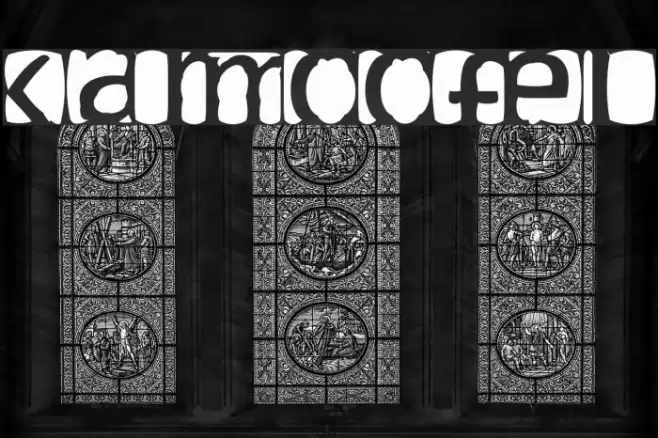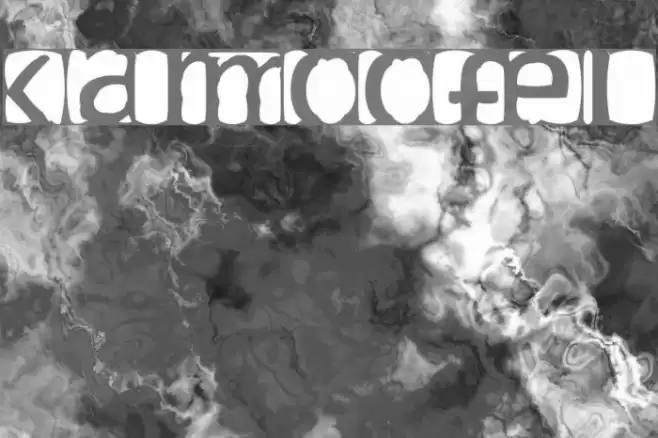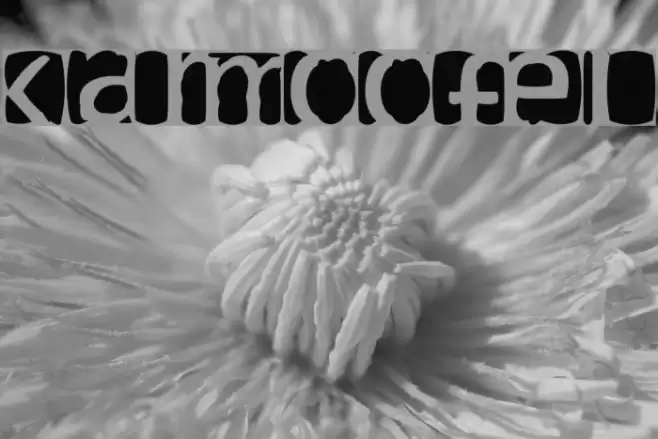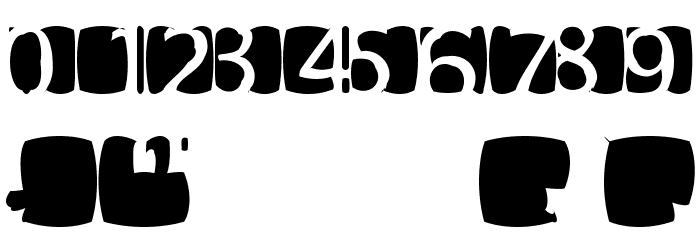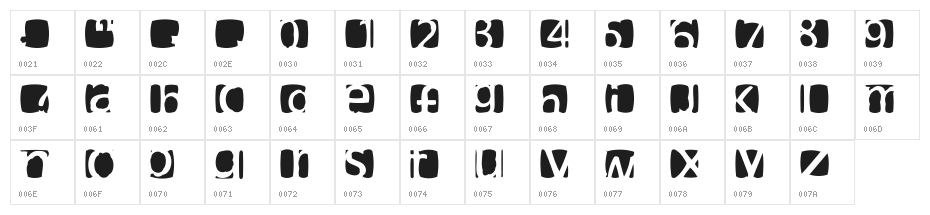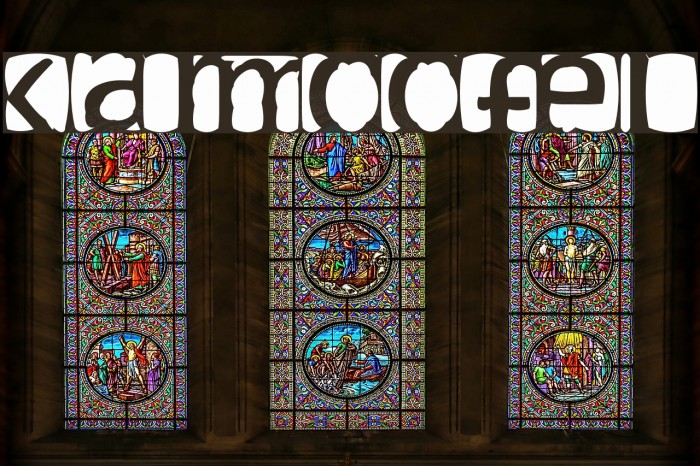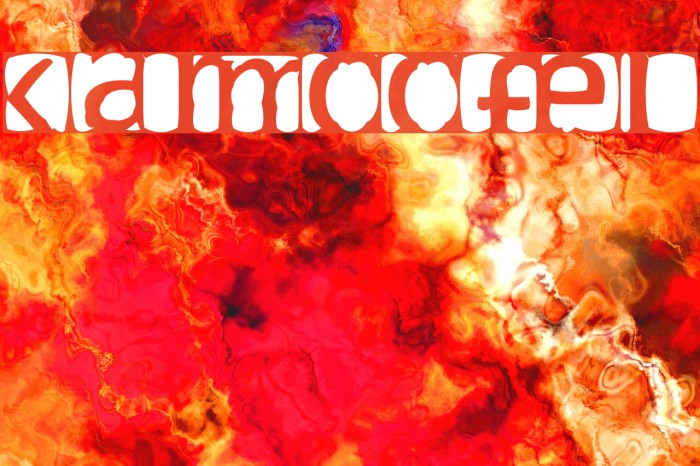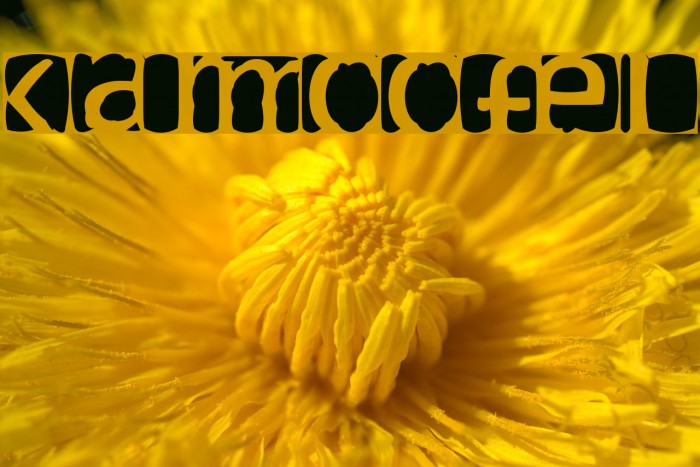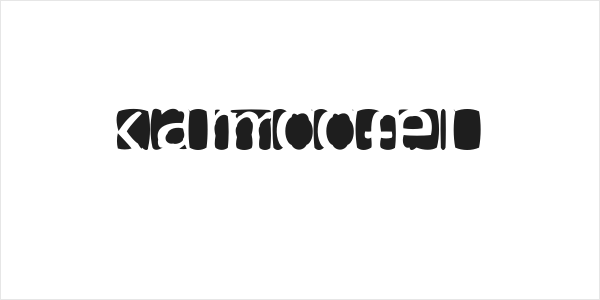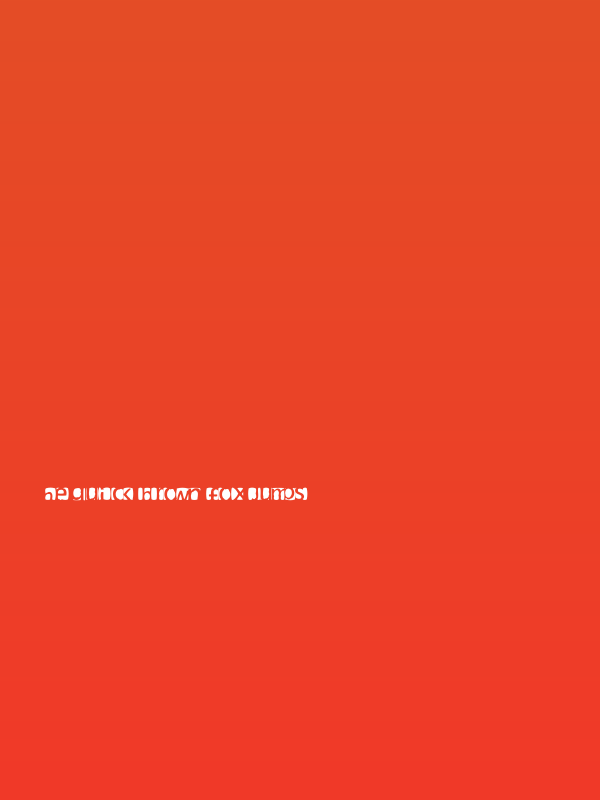
karmoofel Font
karmoofel Description
This font features a bold and striking design with a highly decorative style. The characters are enclosed within rounded, square-like shapes, creating a unique and artistic appearance. The letters have a high contrast between thick and thin strokes, giving them a dynamic and eye-catching look. The overall style is modern and abstract, making it suitable for creative and unconventional projects. The font's distinctiveness is enhanced by its playful and somewhat chaotic arrangement of shapes, which adds a sense of movement and energy to the text.
A bold, decorative font with high contrast and a modern, abstract style from Decorative fonts.
- Proposed Projects: Ideal for artistic posters, album covers, branding for creative industries, and unique logo designs.
- Overall Style: Modern, Abstract, Decorative
- Use Case: Logos, Posters, Album Covers